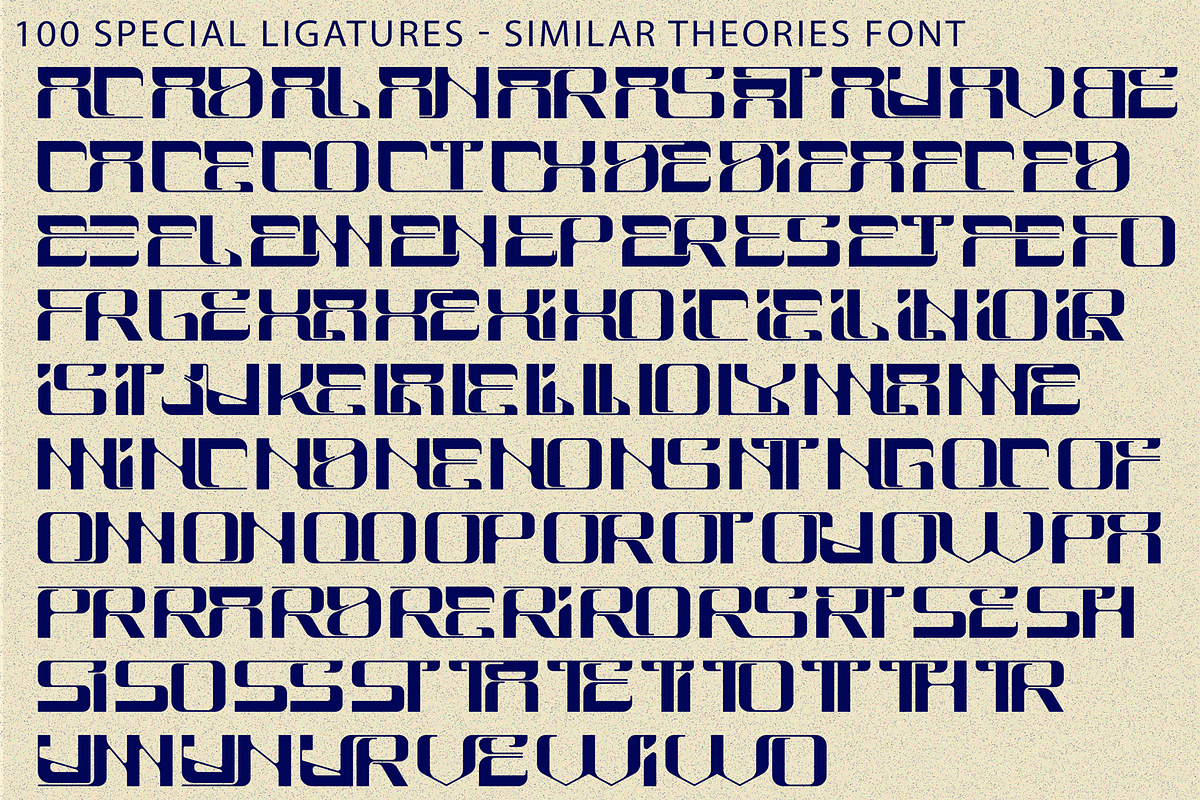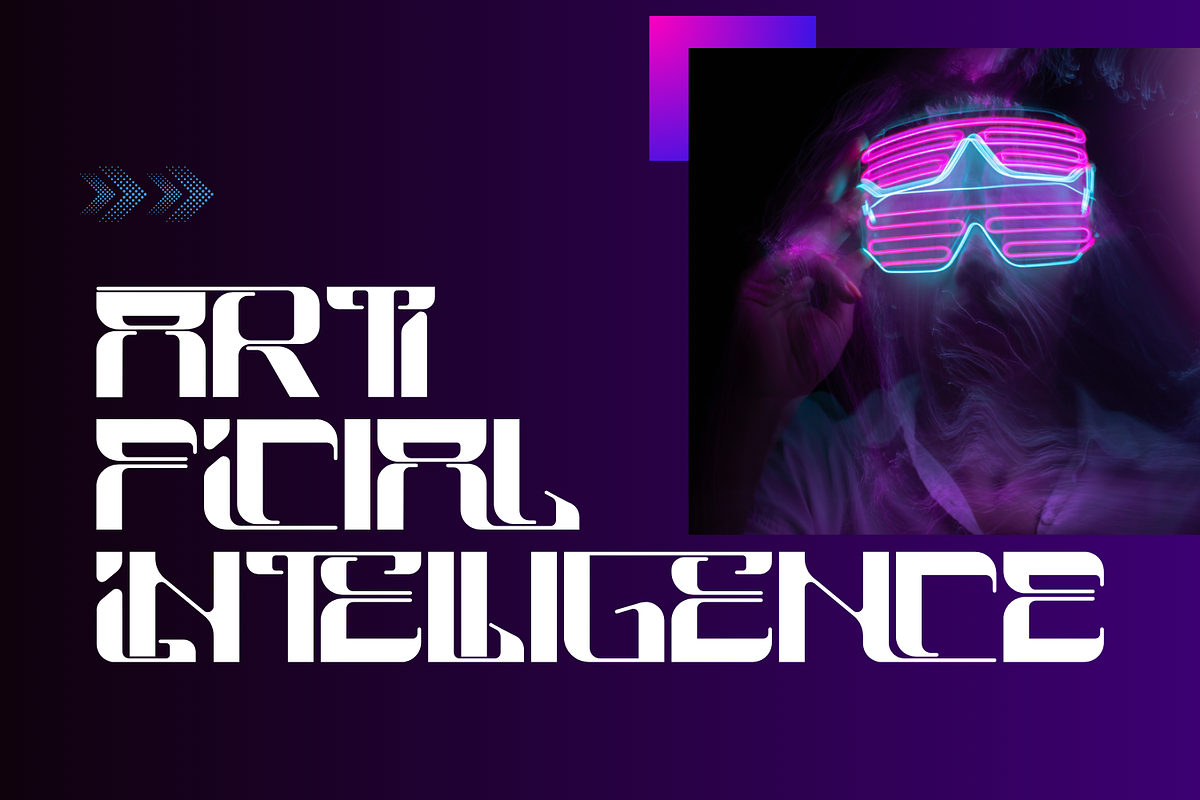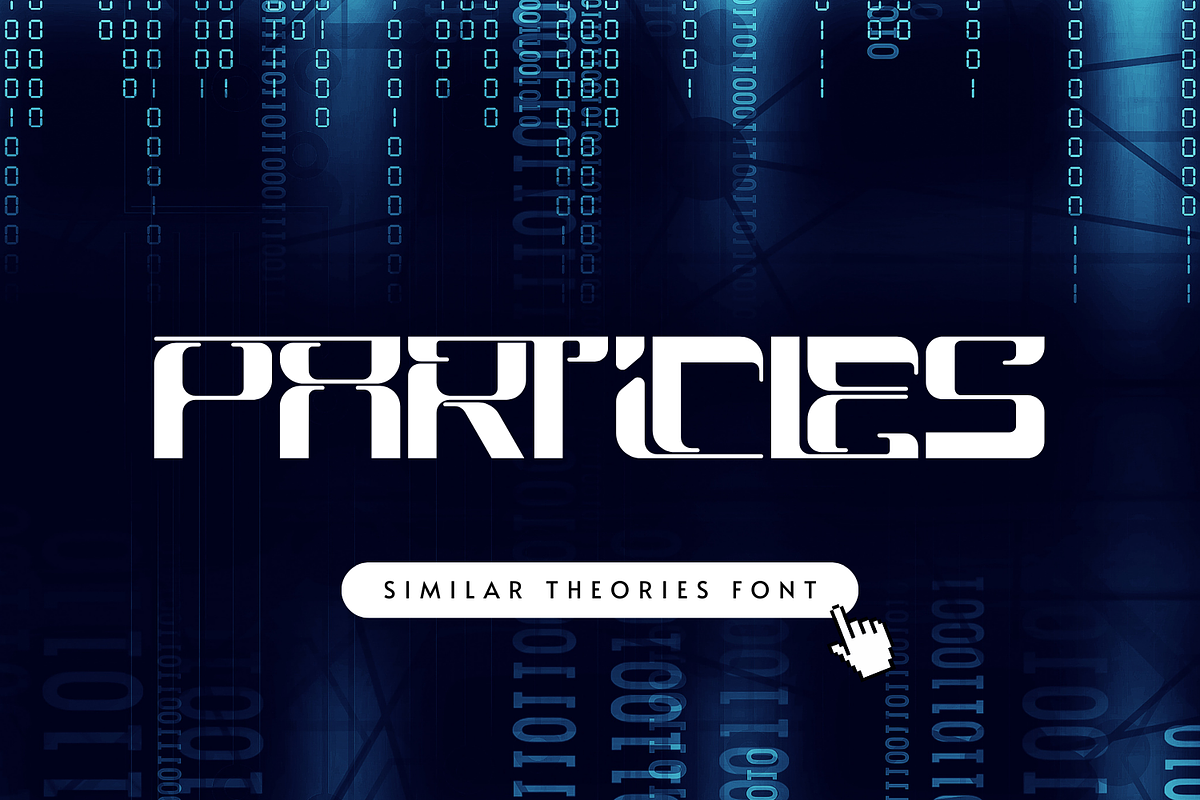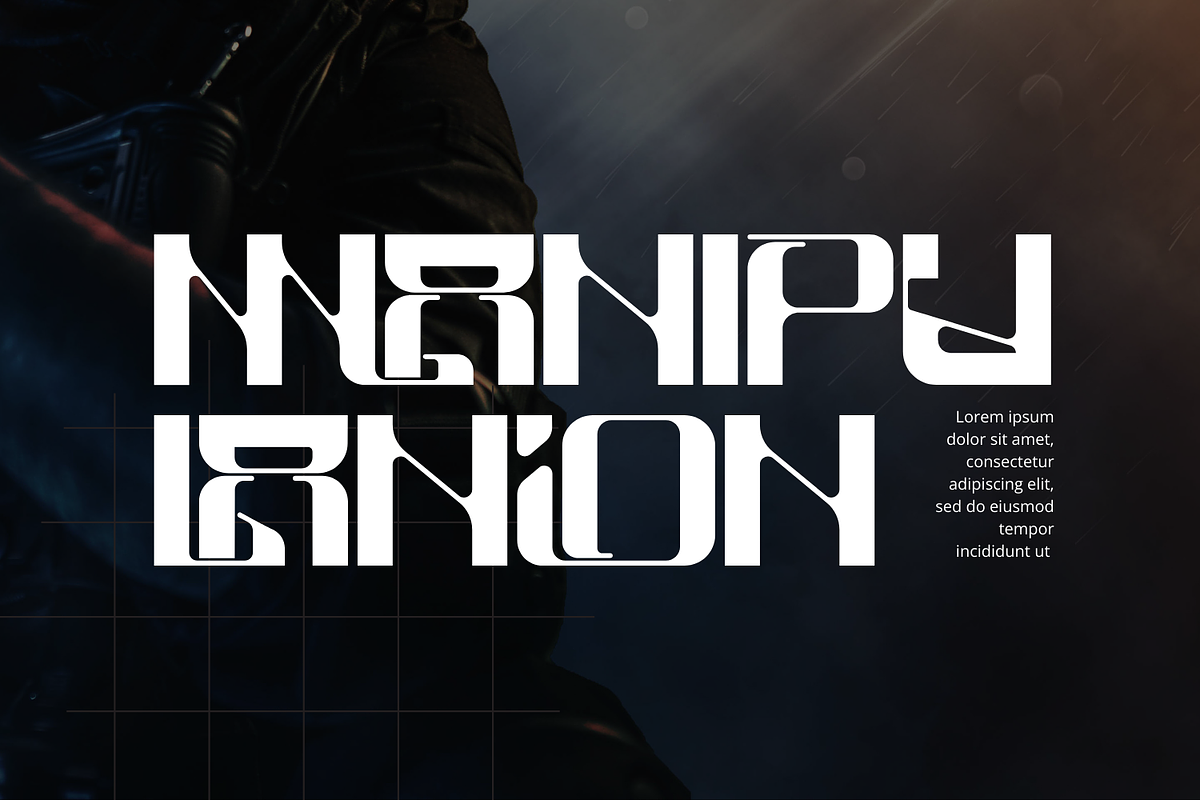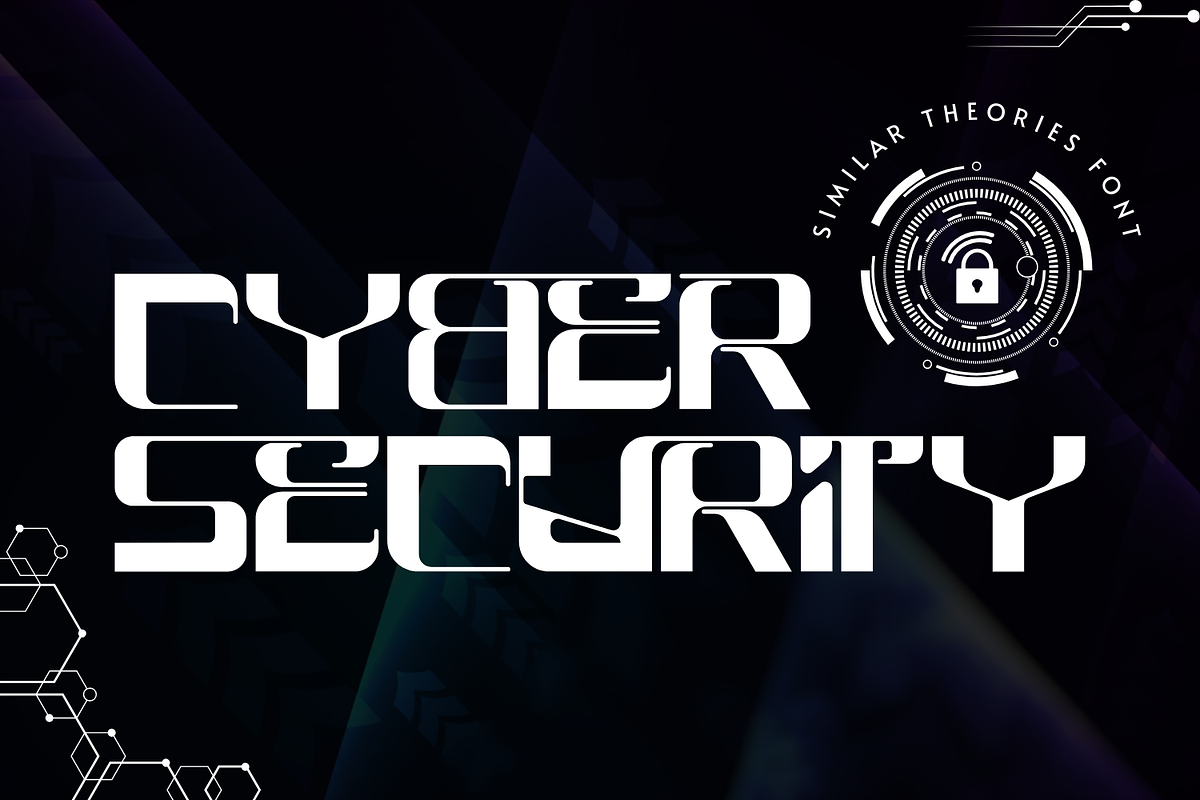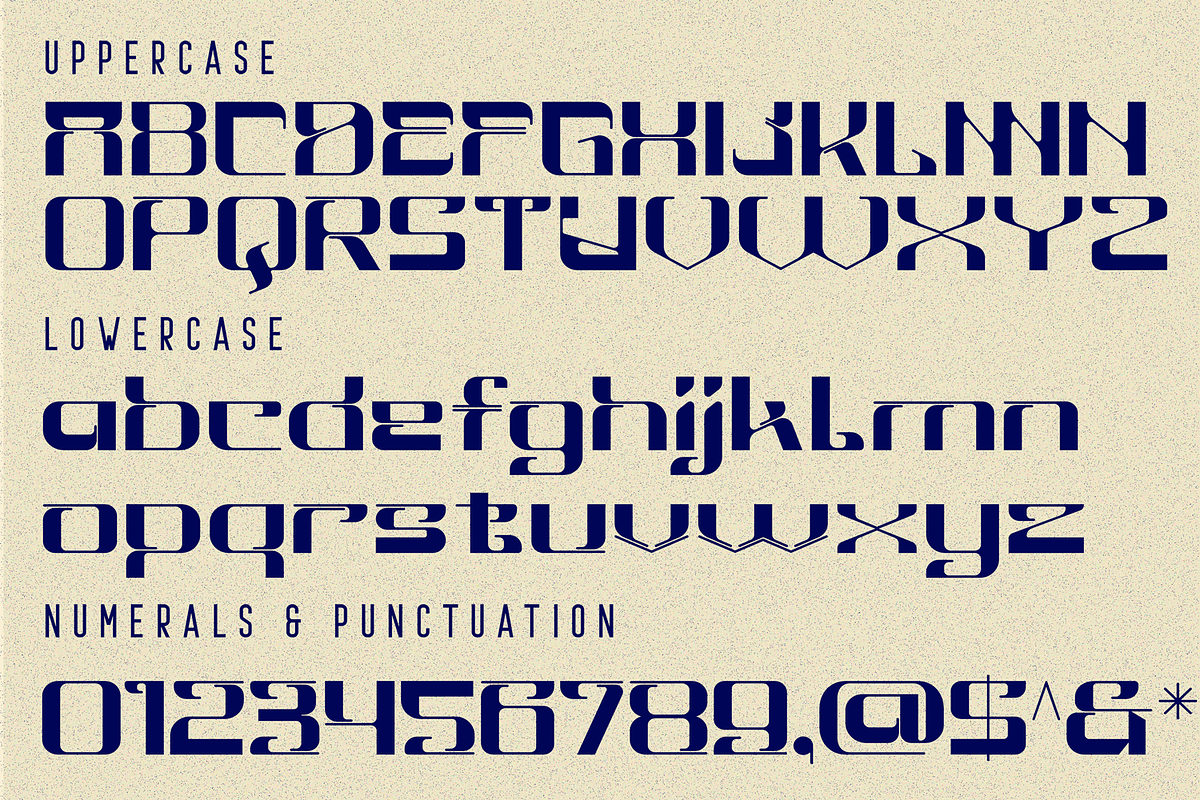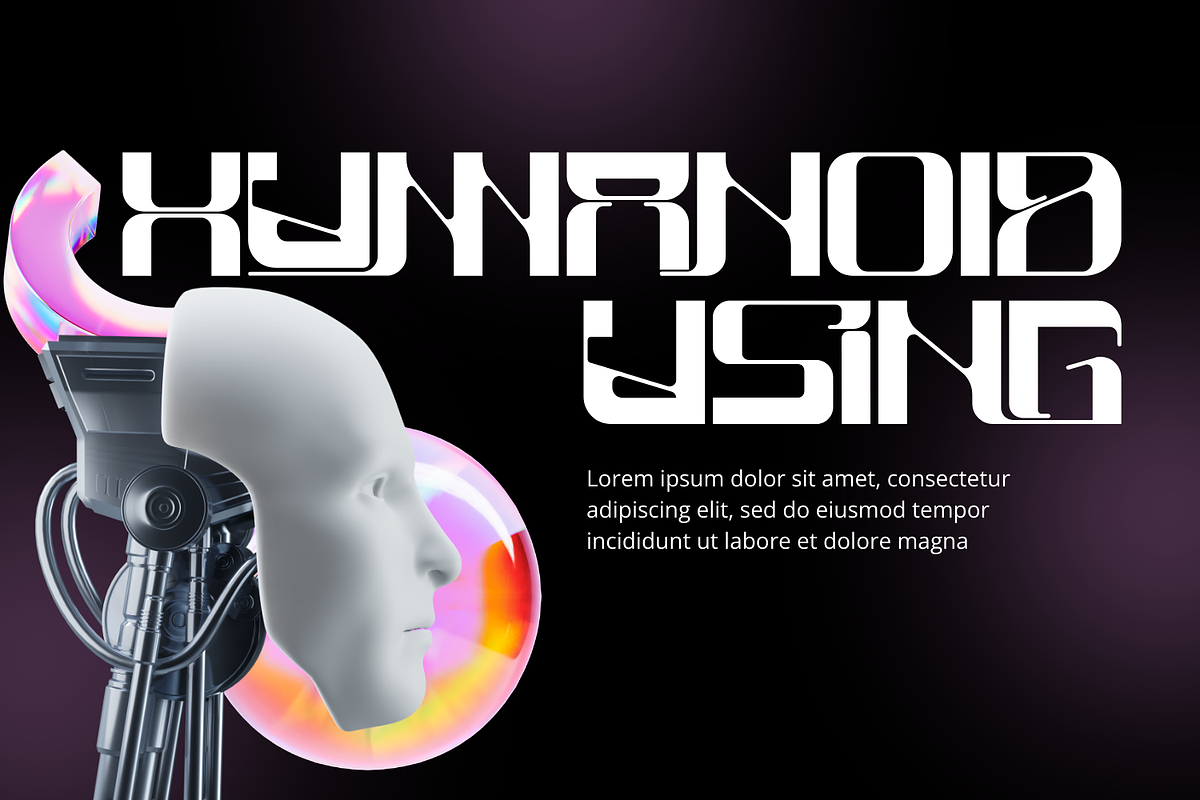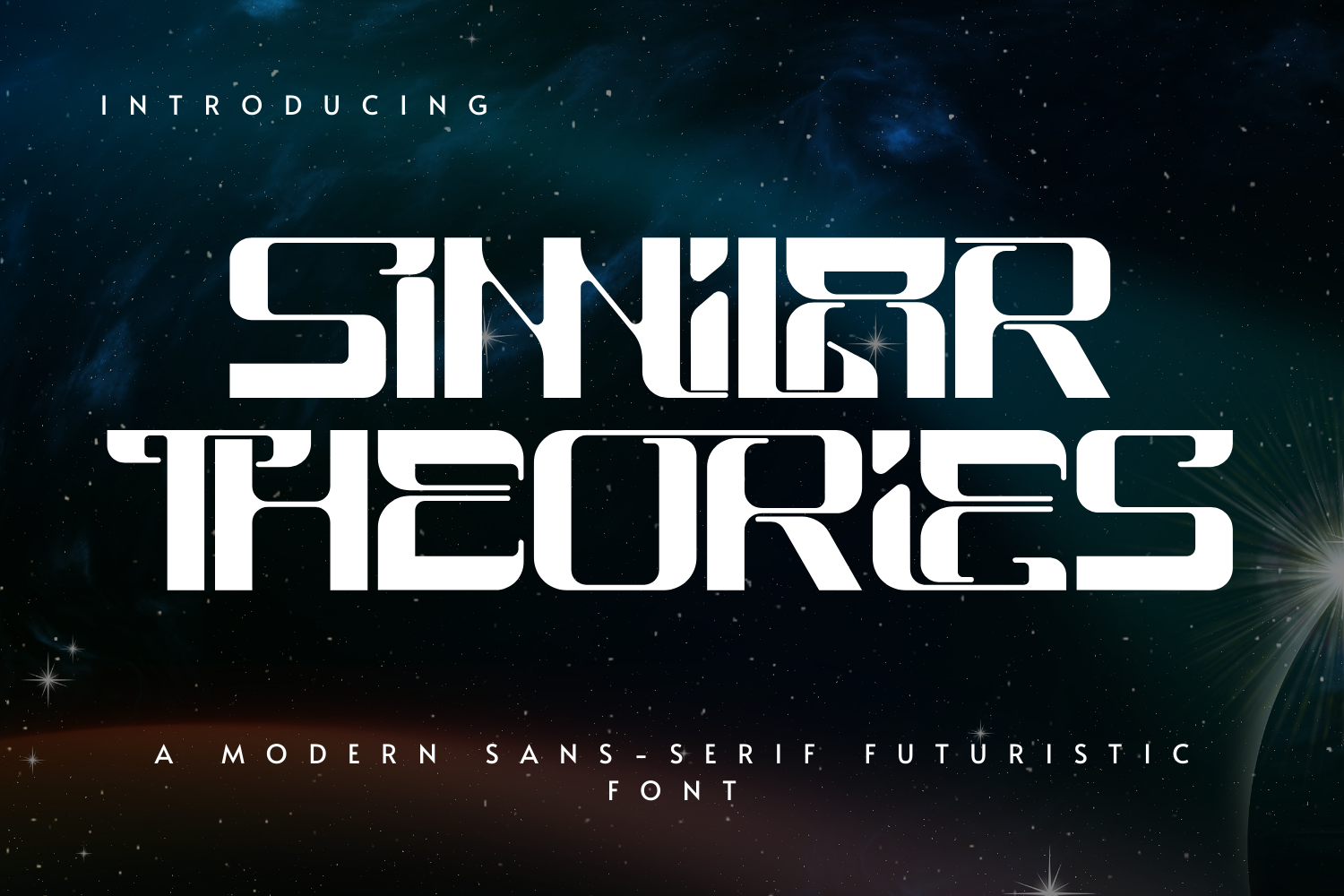
SIMILAR THEORIES - TECHNO FONT
SIMILAR THEORIES - TECHNO FONT is a futuristic techno display sans-serif typeface inspired by sci-fi aesthetics and modern digital design. Built with bold geometric shapes, smooth rounded corners, and distinctive tech-cut details, this font delivers a powerful and high-tech visual identity. Its strong structure and futuristic proportions make SIMILAR THEORIES perfect for gaming titles, sci-fi posters, technology branding, space-themed projects, and modern logo design. The clean strokes and mechanical character shapes create a dynamic rhythm that instantly communicates innovation and forward-thinking style.
🔤Features:
- Uppercase & Lowercase Letters
- Around 100 Special Ligatures & Alternates
- Accented Characters for multilingual support
🔤About 100 ligatures combined with Stylistic Alternates Font:
AC AD AL AN AR AS AT AU AV BE CA CE CH CO CT DE DI EA EC ED EE EL EM EN EP ER ES ET FE FO FR GE HA HE HI HO IE IC IL IN IO IR IS IT JU KE LA LE LI LL LO LY MA ME MI NC ND NE NG NO NT NS OC OF OM ON OO OP OR OT OU OW PA PR RA RD RE RI RO RS RT SE SH SI SO SS ST TA TE TH TI TO TR TT UM UN UR VE WI WO